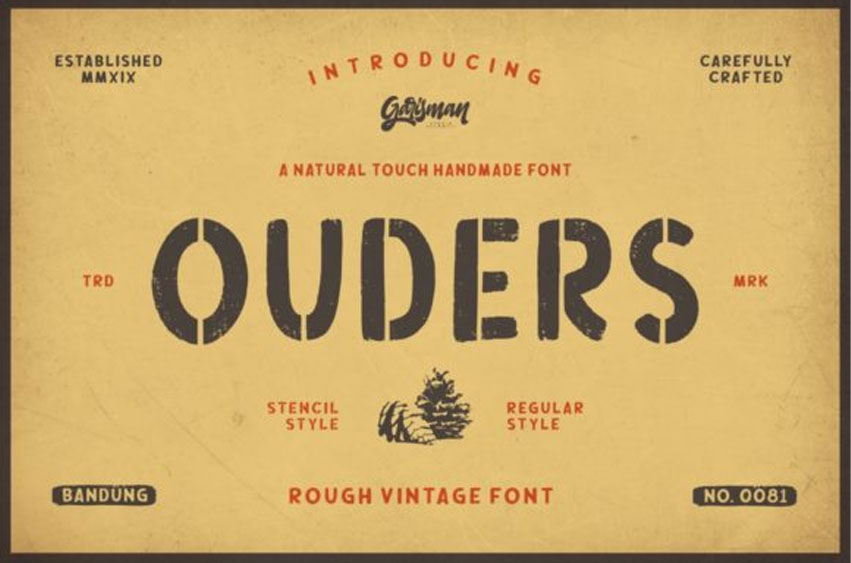
Ouders Font
Ouders Font features an original hand-drawn style that will add a level of nostalgia and authenticity to any design idea.
This font is well-suited for a variety of contexts, such as print design, promotional materials, or magazine layouts.